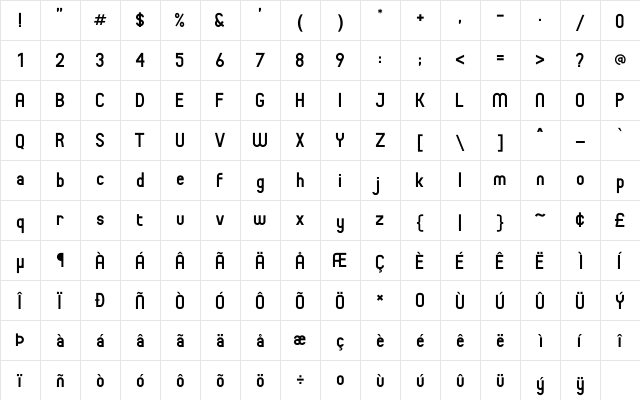
Baginda Regular
Design Context for Baginda Typeface
Baginda offers clean, dependable letterforms without strong stylistic allegiance, making it a practical choice for designers who need flexibility.